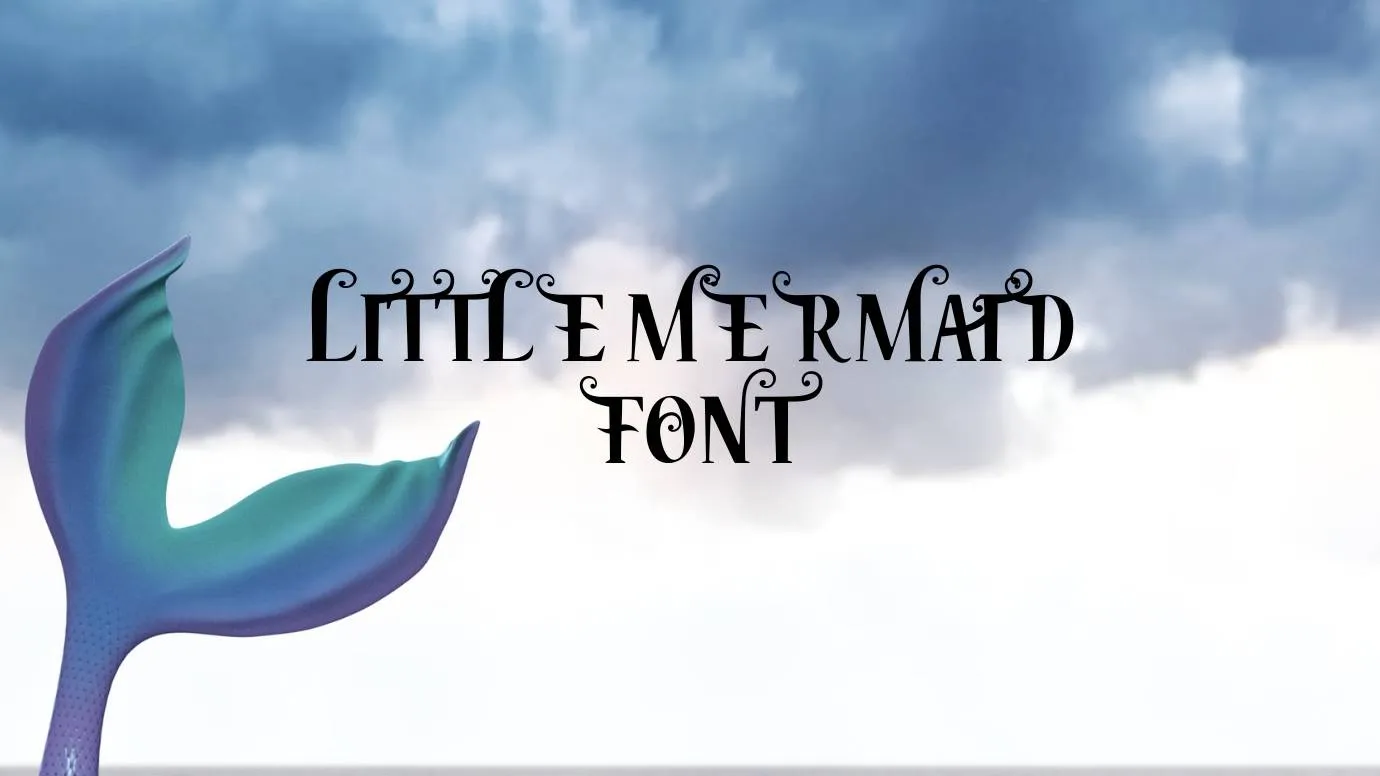
Little Mermaid Font Family is a movie font that has been inspired by a movie title called The Little Mermaid. This is an American fantasy movie that was made by directors named Ron Clements and John Musker that was released via Walt Disney Pictures.
This logo font was designed by Kustren based on this movie and released for public use on 6 January and 2014. With TrueType features and a complete set of 150 characters, it has become the most popular font among designers. Pirate Font is very close to this typeface.
Little Mermaid Font Family